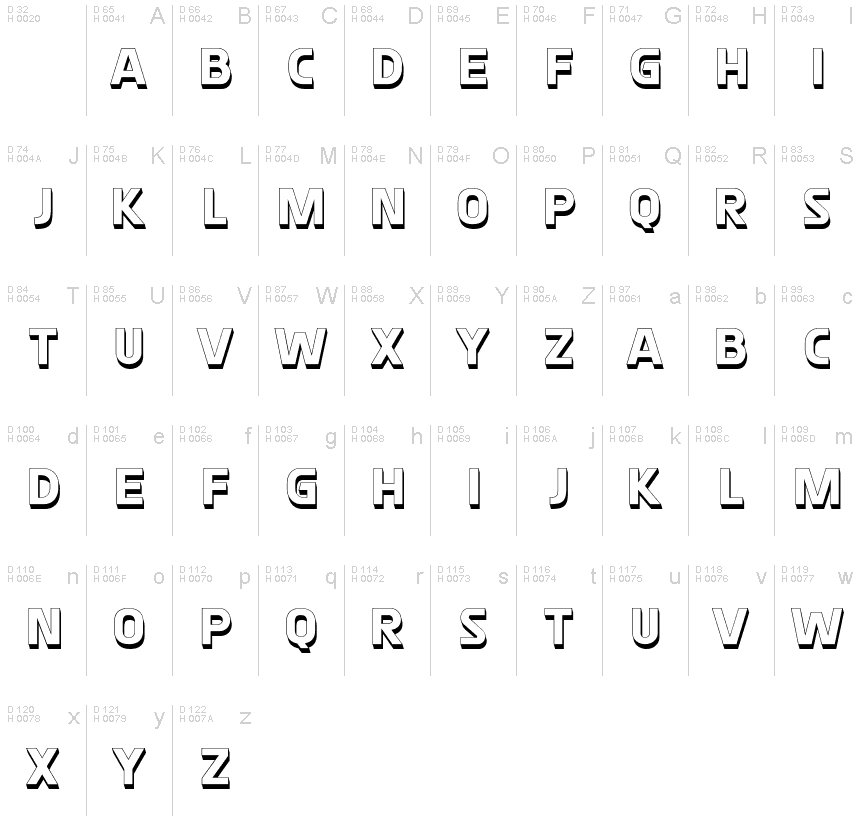
Net Worth Regular
Net Worth, designed by Vladimir Nikolic, is a captivating display font that demands attention. With its bold 3D sans serif style, this font exudes confidence and adds a touch of modernity to any project.
Its strong and powerful presence makes it the perfect choice for creating impactful headlines, eye-catching logos, and dynamic posters. Whether you're designing for finance institutions, tech startups, or luxury brands looking to make a statement, Net Worth will elevate your projects to new heights with its striking visual appeal.